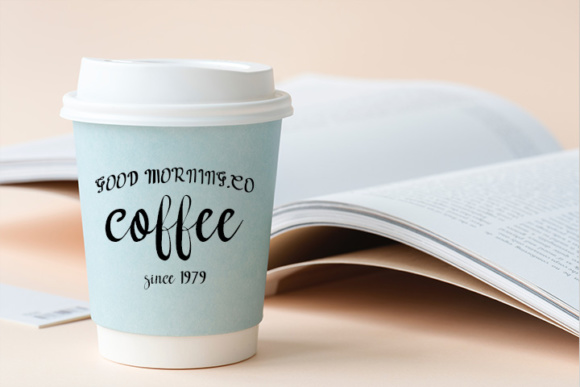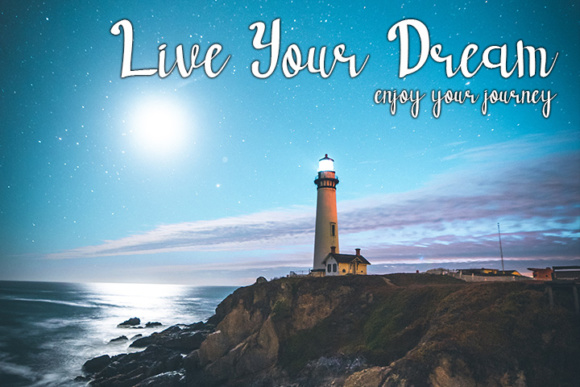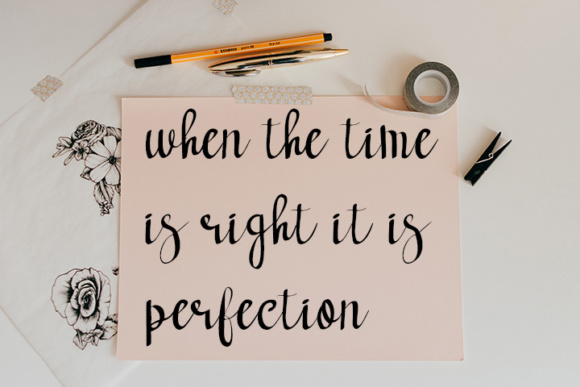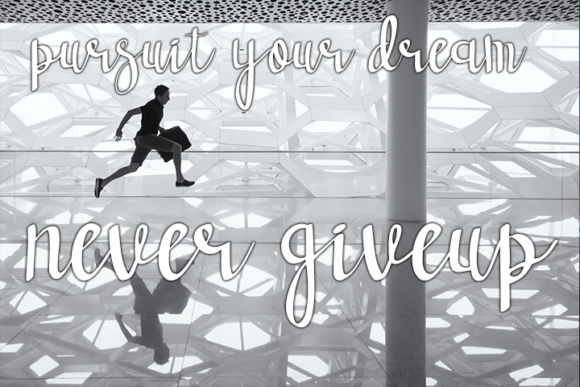
The Enchanting Forest Dream Font: A Designer’s New Best Friend
I’ll never forget the moment I stumbled upon the Forest Dream font. I was working on a branding project for a eco-friendly craft business, and I was struggling to find the perfect script font that would capture the whimsical, natural vibe of the brand. That’s when I discovered Forest Dream – a fresh, modern script font that instantly transported me to a world of creativity and possibility.
A First Impression: What I Love About Forest Dream
The Forest Dream font has quickly become a staple in my design toolkit, and for good reason. Here are just a few things that I love about it:
- ✨ Unique, irregular baseline that adds a touch of whimsy to any design
- ✅ Fresh, modern feel that’s perfect for branding, packaging, and more
- 💫 Highly legible, even at smaller font sizes
- 🎨 Versatile and adaptable – works beautifully with a range of design styles
A Few Quirks to Keep in Mind
While Forest Dream is an amazing font, it’s not without its quirks. Here are a few things to keep in mind:
- 🤔 Some letters may appear a bit irregular or uneven, which can be a deliberate design choice but might not work for every project
The Story Behind Forest Dream
Forest Dream was designed with the intention of capturing the essence of the natural world in a modern, digital font. The designer, inspired by long walks in the forest and the beauty of the changing seasons, set out to create a font that would evoke a sense of wonder and magic. The result is a font that’s both fresh and timeless, perfect for designers and crafters looking to add a touch of whimsy to their work.
| Is Forest Dream suitable for body text? | While Forest Dream is a beautiful font, it’s best suited for display text, titles, and headings. For body text, you may want to choose a more traditional serif or sans-serif font. |